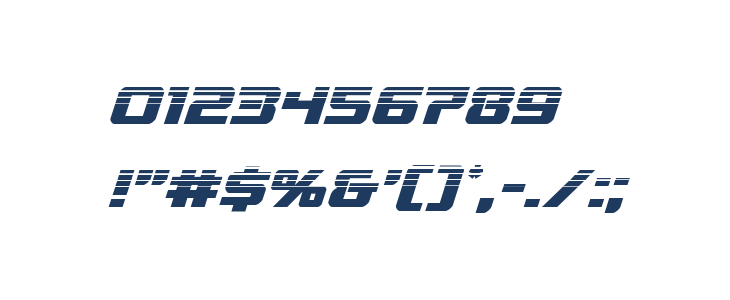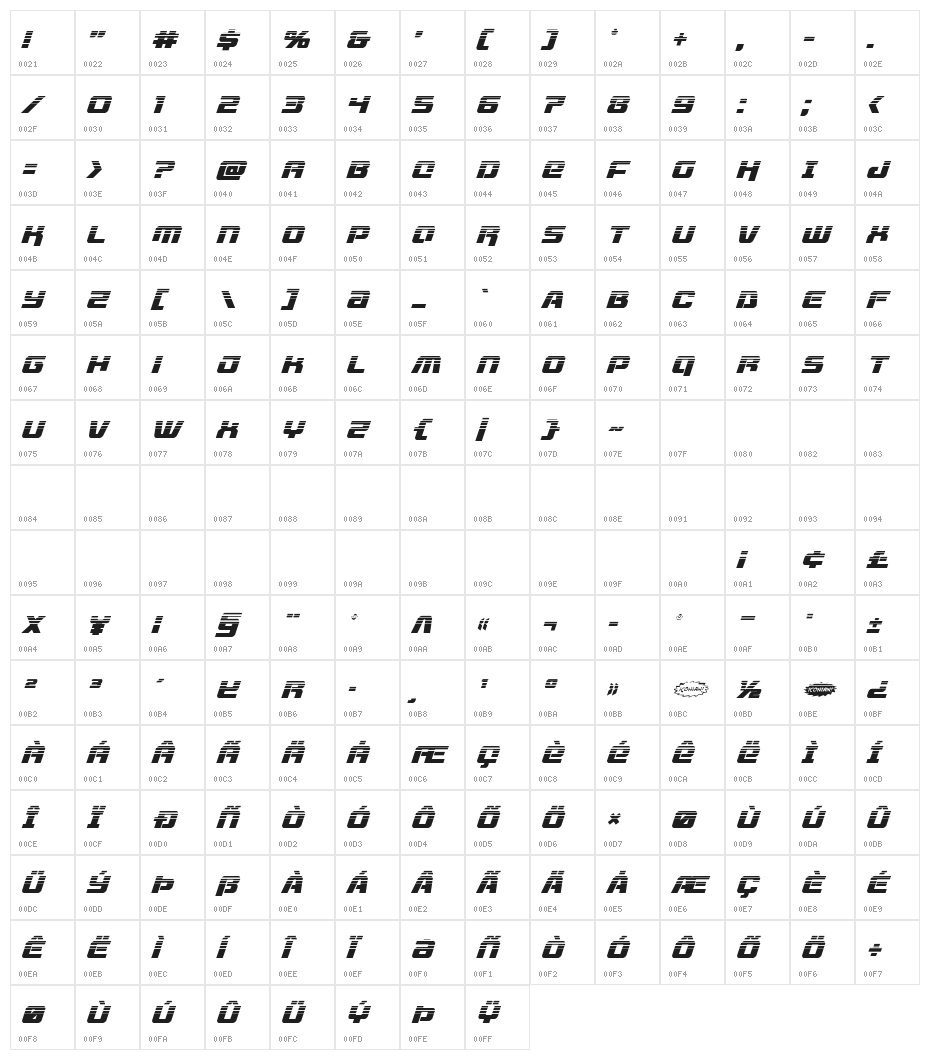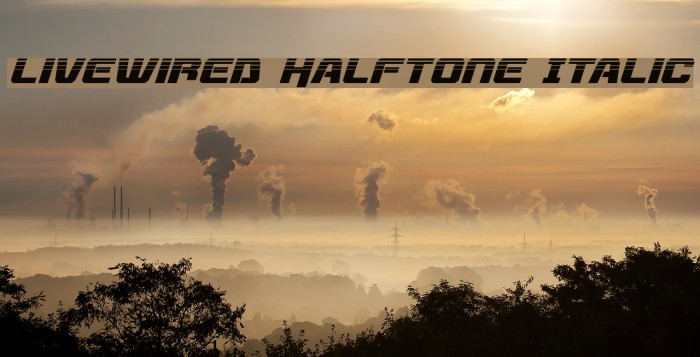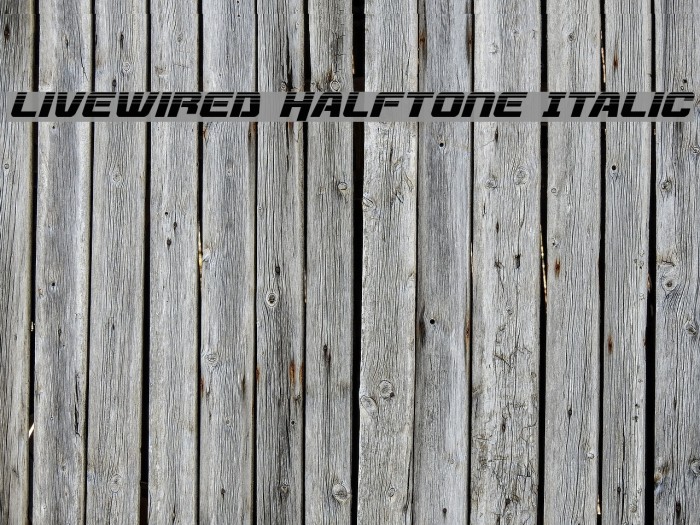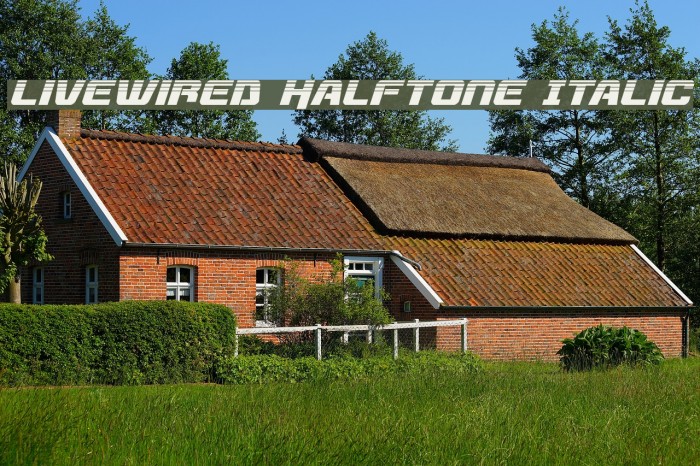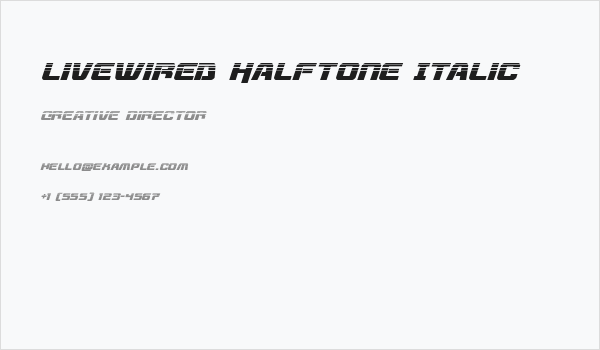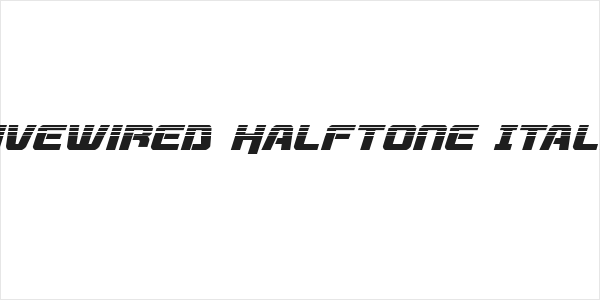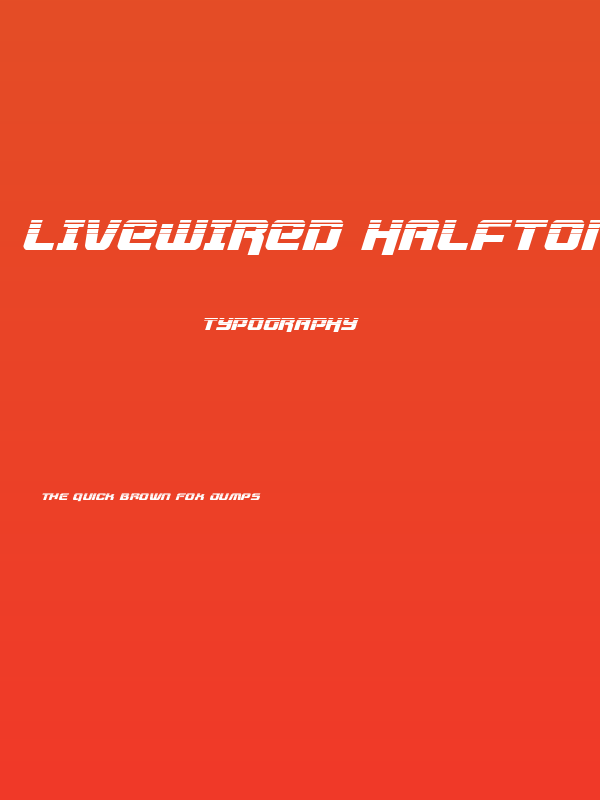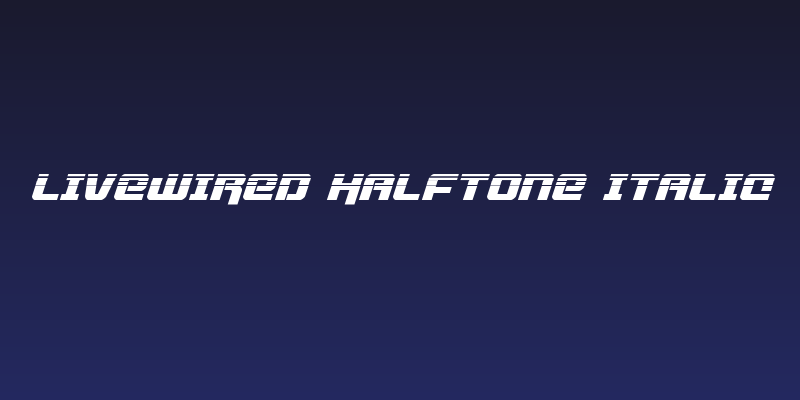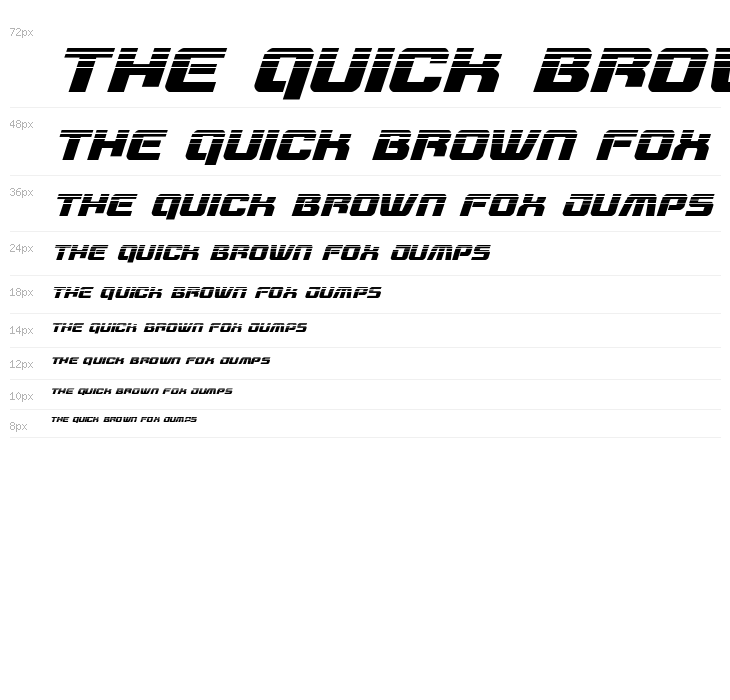
Livewired Halftone Italic Font
Livewired Halftone Italic Description
This font features a bold, italicized style with a distinct halftone pattern that gives it a dynamic and futuristic appearance. The characters are designed with sharp angles and a consistent slant, creating a sense of motion and energy. The halftone effect adds texture and depth, making it stand out in digital and print media. Each letter is crafted with precision, maintaining a uniform width that enhances readability while still offering a unique visual appeal. The numbers and special characters follow the same design principles, ensuring a cohesive look across all elements.
| Overall Style | Futuristic, Dynamic |
| Proposed Projects | Ideal for projects that require a modern and edgy look, such as tech branding, video game titles, or sci-fi themed posters. |